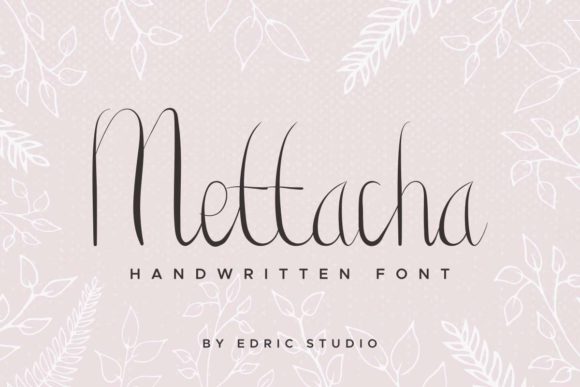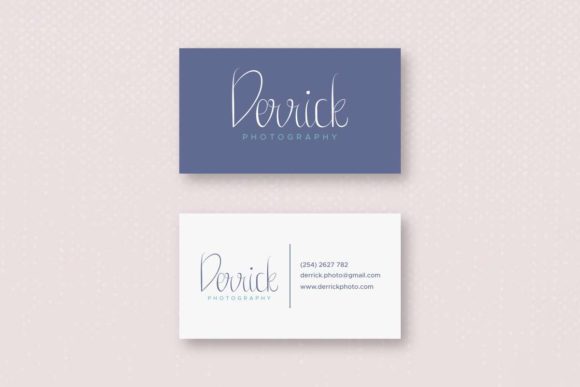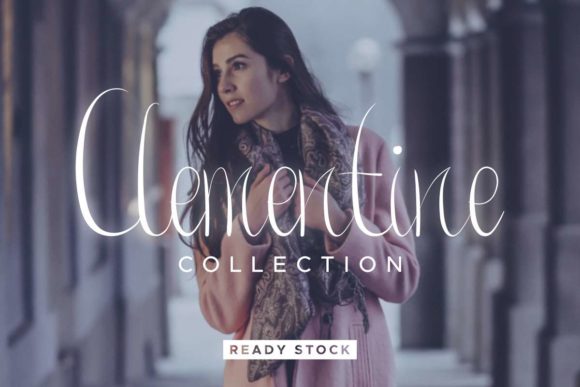
Introduction to Mettacha Font
As I sat in front of my computer, staring at a blank canvas, I knew I needed a spark to ignite my creativity. The perfect design resource can make all the difference in bringing a project to life, and that’s exactly what I found in the Mettacha Font. This elegant and casual handwritten font has an incredibly friendly feel that instantly captured my attention.
With its high-quality design and wide range of glyphs, the Mettacha Font is a valuable addition to any designer’s toolkit. Whether you’re working on a creative project or simply need a beautiful font for a blog post, this free download is sure to impress. Plus, its transparent background makes it easy to layer and manipulate, giving you endless possibilities for customization.
Key Features of Mettacha Font
- High-quality design: Mettacha Font is a premium quality font that is suitable for various creative projects, including graphic design, digital art, and publishing.
- Transparent background: Mettacha Font features a transparent background, allowing users to easily place it over any image or background without any issues.
- Large character set: Mettacha Font includes a large character set, including uppercase and lowercase letters, numbers, and special characters, making it a versatile design resource.
- High-resolution design: The font is designed at a high resolution of 300 DPI, ensuring that it looks crisp and clear when used in high-resolution designs.
Honest Review: Mettacha Font
As a designer, I’m always on the lookout for high-quality design resources that can elevate my creative project. Recently, I stumbled upon the Mettacha Font, and I’m excited to share my thoughts on this free download.
One of the standout features of the Mettacha Font is its unique and modern aesthetic ✨. The font’s clean lines and elegant curves make it perfect for a variety of design applications, from branding to editorial design. I also appreciate the fact that the font has a transparent background, which allows for seamless integration with any design element.
Here are some of the key benefits of the Mettacha Font:
- High-quality design with a unique aesthetic ✨
- Perfect for branding, editorial design, and more
- Transparent background for seamless integration
While the Mettacha Font is a valuable addition to any designer’s toolkit, I do have a few limitations to note ⚠️:
- Only available in a limited range of font weights
- May not be suitable for all design applications (e.g. extremely complex typography)
Overall, I’m impressed with the Mettacha Font and would highly recommend it to designers looking for a high-quality, free design resource. It’s a great addition to any design project, and its unique aesthetic is sure to stand out.
Tips for Getting the Most Out of Mettacha Font
To get the most out of the Mettacha Font, use it in combination with other high-quality design resources, such as graphics and images. Experiment with different font sizes, colors, and styles to create visually appealing designs. Additionally, use the font in a variety of creative projects to showcase its versatility.